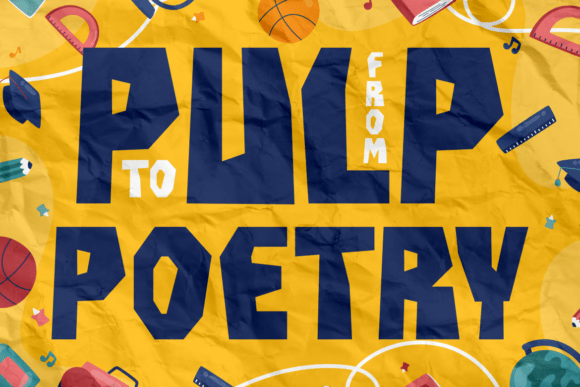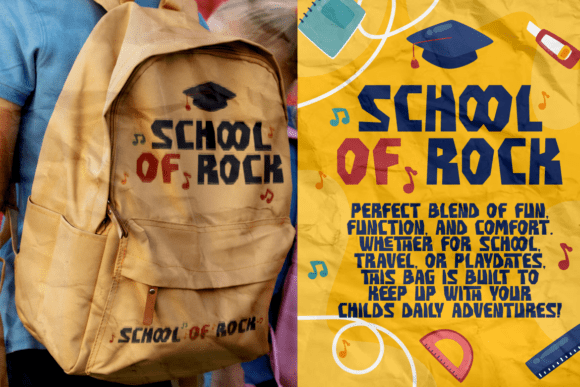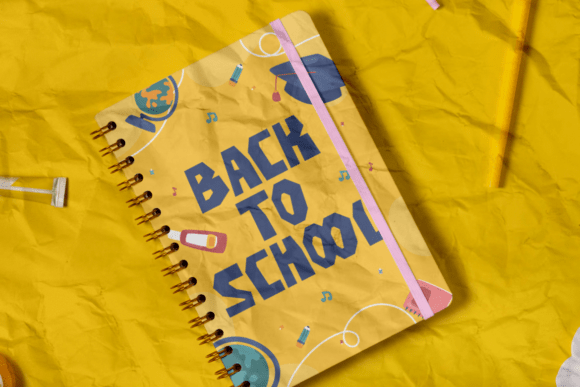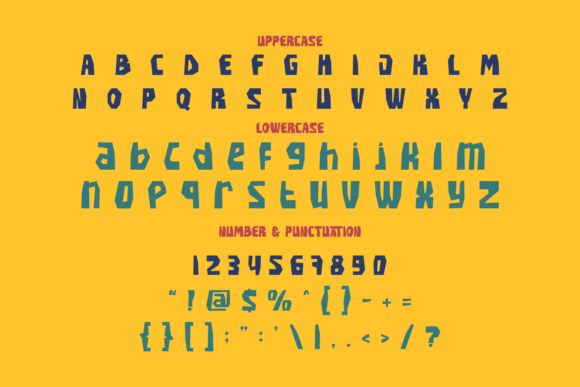
Introduction to Paper Slash Font
Have you ever stumbled upon a font that makes you feel like a kid again? A font that transports you back to the days of scribbling with crayons and making art projects with construction paper? For designers, finding the perfect font can be a game-changer, and we’re excited to introduce you to one that’s sure to bring a smile to your face: Paper Slash Font.
This charming display font features a unique blend of modern and handmade elements, with sharp, irregular edges that evoke the feeling of cut-out paper letters. With its bold, blocky letterforms and vibrant yellow background, Paper Slash Font is the perfect addition to any creative project, from posters and book covers to stickers and packaging.
Key Features of Paper Slash Font
- Includes a range of weights and styles to suit different design needs and creative projects
- Designed with a unique, modern aesthetic that’s perfect for adding a touch of elegance to any design
- Part of a larger font family, offering a cohesive look and feel for consistent branding and design
Honest Review: Paper Slash Font
As a designer, I’m always on the lookout for unique and high-quality design resources to elevate my creative projects. Recently, I stumbled upon the Paper Slash Font, and I must say, it’s been a game-changer.
What works well about this font is its versatility. The Paper Slash Font has a clean and modern aesthetic that can be used for a variety of applications, from digital designs to print materials. The font is highly customizable, and I love how it can be easily paired with other design elements to create a cohesive look.
- ✨ High-quality design: The Paper Slash Font is a high-quality design resource that’s sure to elevate any design project.
⚠️ One limitation I’ve noticed is that the font can be a bit difficult to read in certain contexts. However, with a bit of creative tweaking, this can be easily overcome.
Overall, I’m thoroughly impressed with the Paper Slash Font. Its unique design and versatility make it an excellent addition to any designer’s toolkit. If you’re looking for a high-quality design resource for your next creative project, I highly recommend giving it a try.
Design Tips
For the most out of the Paper Slash Font, use it in combination with other design elements that have transparent backgrounds. This will create a cohesive and visually appealing design. Also, experiment with different font sizes and styles to add depth and interest to your design.